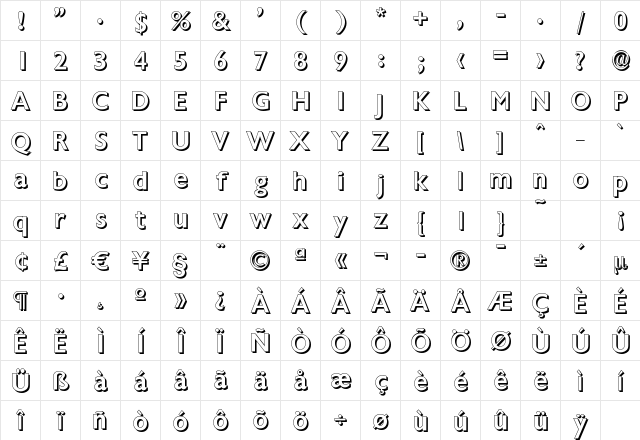
ChantillyDropShadow-Medium Regular
ChantillyDropShadow-Medium Family
ChantillyDropShadow-Medium Regular
ChantillyDropShadow-Medium Regular Font Preview
ChantillyDropShadow-Medium Regular Uppercase Preview
ChantillyDropShadow-Medium Regular Lowercase Preview
ChantillyDropShadow-Medium Regular Numeric Preview
ChantillyDropShadow-Medium Regular Character Map
Complete ChantillyDropShadow-Medium Regular glyph index. Displaying only characters natively supported by ChantillyDropShadow-Medium Regular font.
Design Context for ChantillyDropShadow-Medium
ChantillyDropShadow-Medium is built around its visual character rather than neutral utility - its distinctive forms are designed to make an impression at display sizes.
Font Pairing: Pair with a clean neutral sans-serif for body copy to let ChantillyDropShadow-Medium's character lead without overwhelming the composition.
Pro Tip: Use ChantillyDropShadow-Medium exclusively at display sizes - it was designed to be seen, not read at length. Let a neutral companion handle body copy.